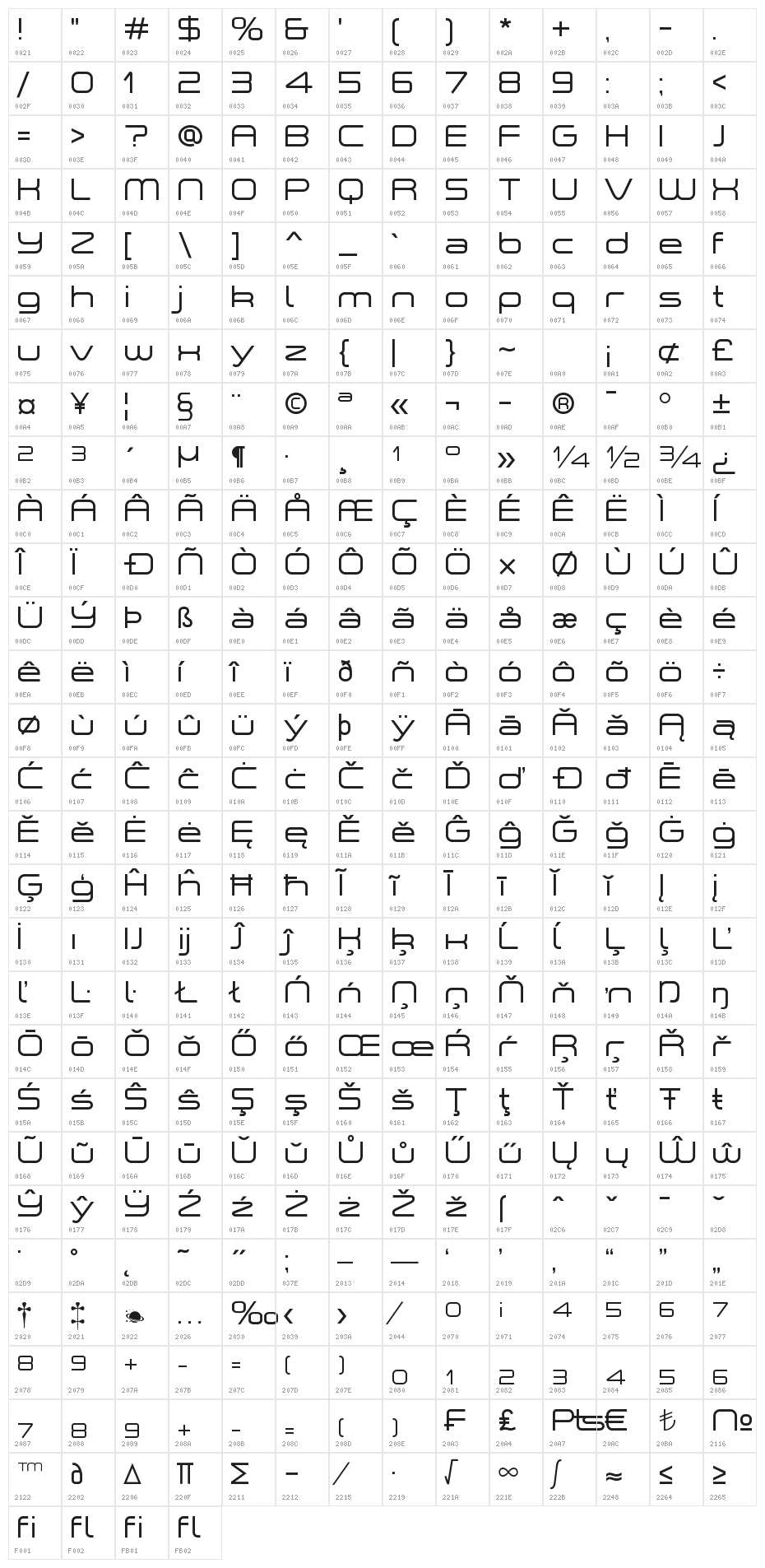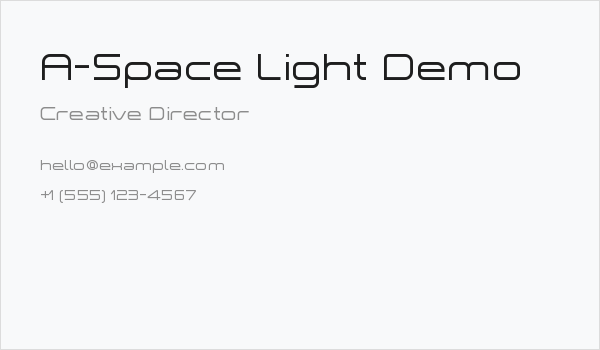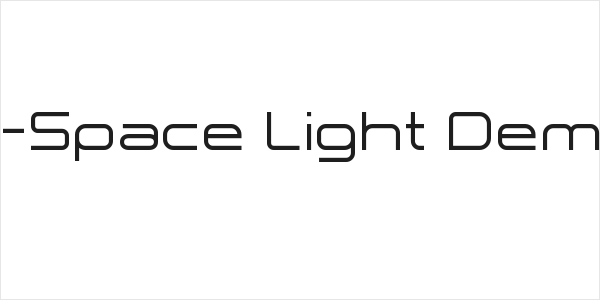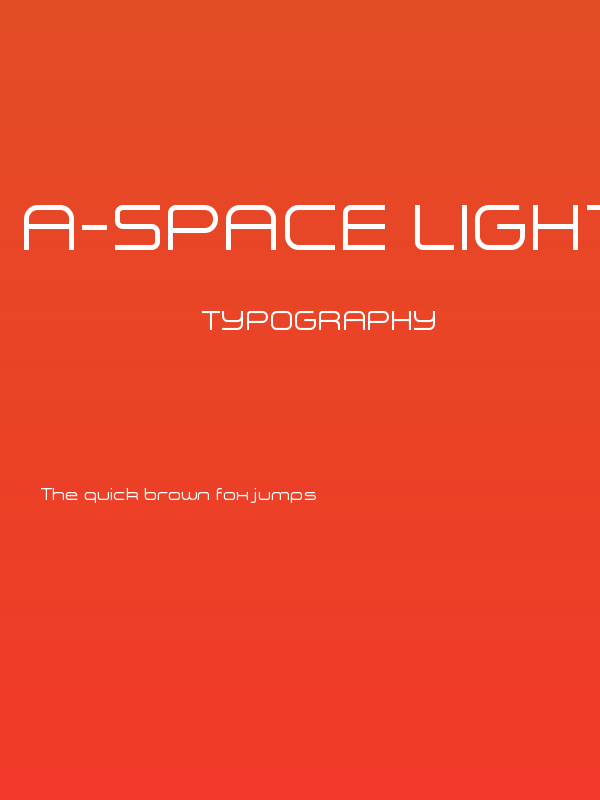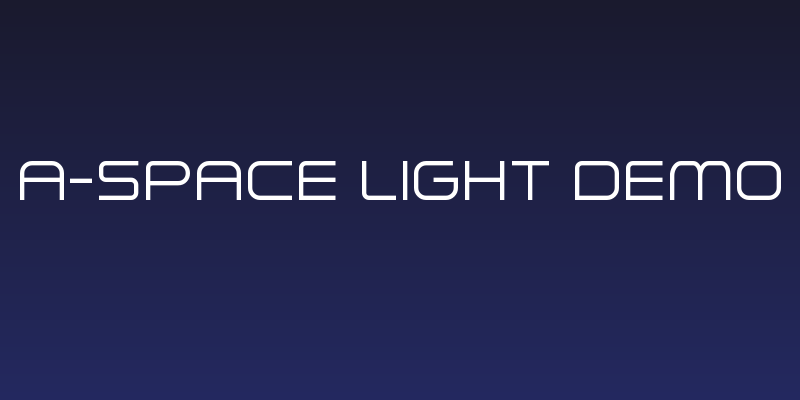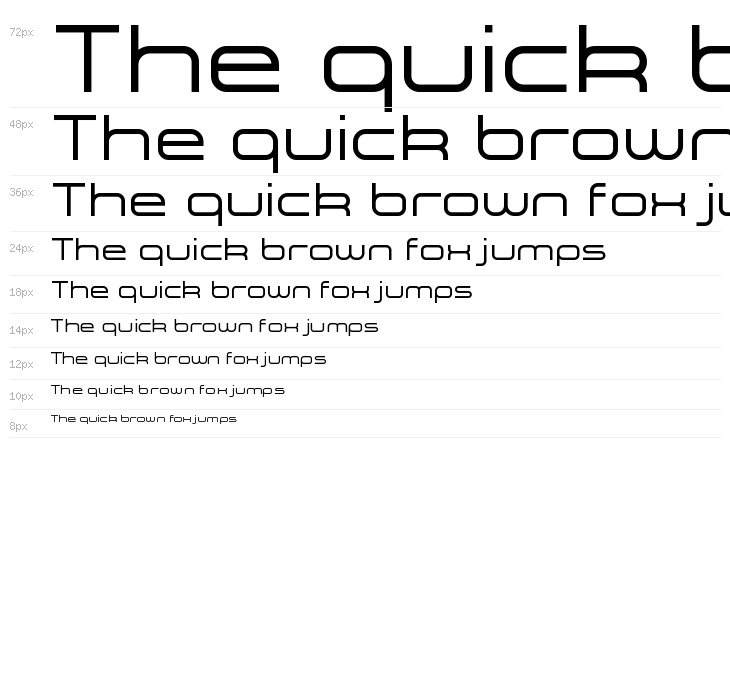
A-Space Light Demo Font
A-Space Light Demo Description
This font features a sleek, modern design with a geometric structure. The characters are composed of clean, straight lines and subtle curves, giving it a futuristic and minimalist appearance. The uppercase and lowercase letters maintain a consistent height, contributing to a uniform and orderly look. The numerals and special characters are designed with the same precision, ensuring readability and style. This font's light weight and open spacing make it ideal for projects that require a contemporary and airy feel.
| Use Case | Headlines, Logos, Web design |
| Proposed Projects | Ideal for tech branding, modern web design, futuristic posters, and minimalist logos. |